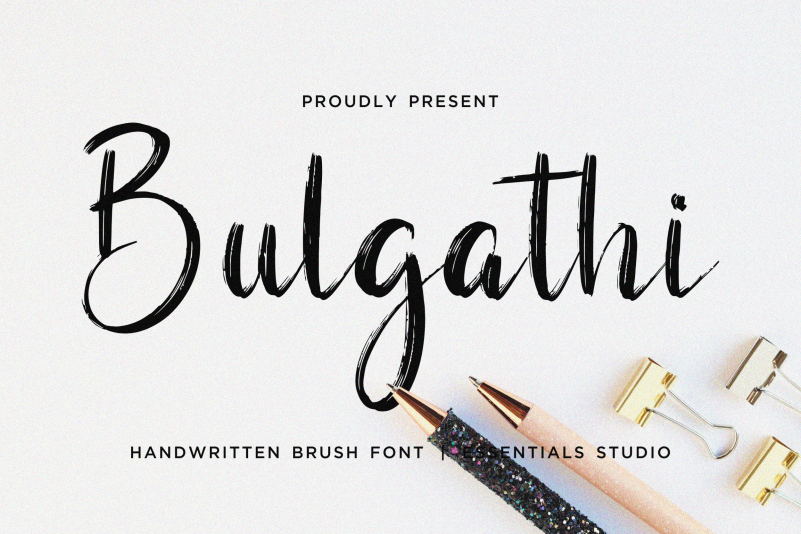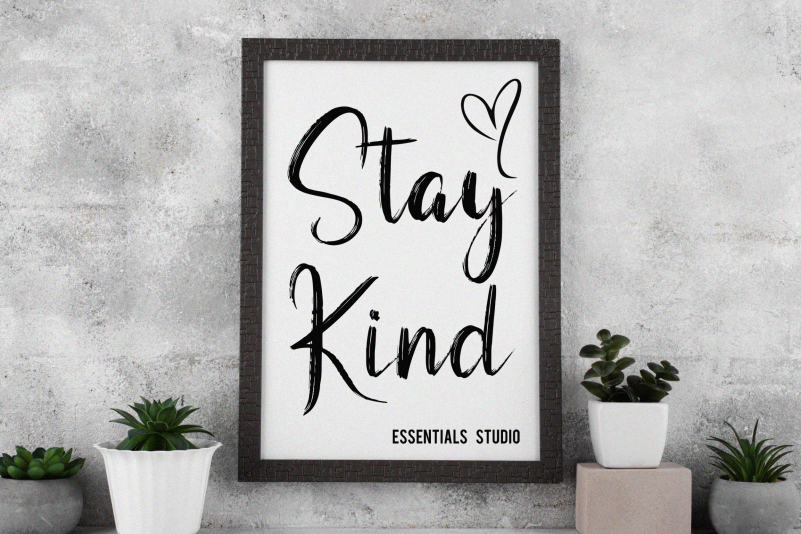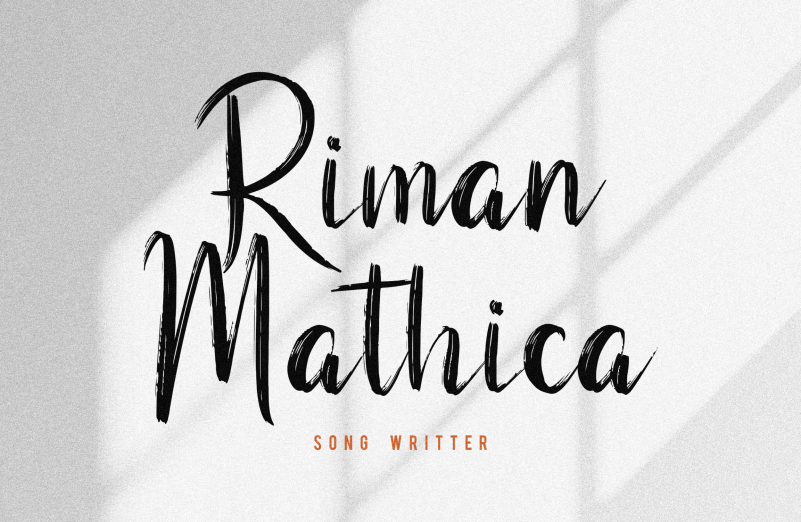
Bulgathi Font
Bulgathi Font Is a Modern Brush HandScript Font. Bulgathi is perfect for product packaging, branding project, megazine, social media, wedding, or just used to express words above the background.